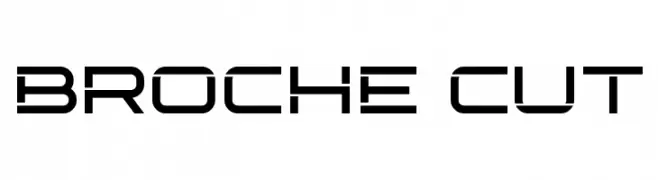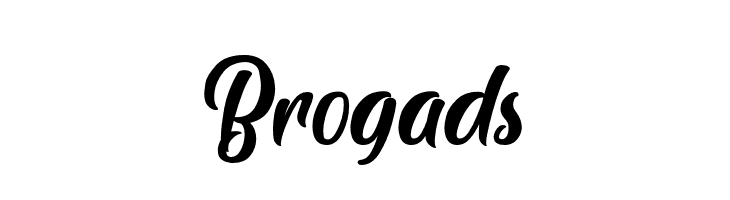
A modern, geometric font with angular lines and unique cut-out sections.
A modern, geometric font with sharp angles and a futuristic aesthetic.
A bold, playful font with rounded edges and a bubbly appearance.
An elegant script font with ornate, flowing characters and intricate details.
A bold, jagged, and dynamic brush-style font with an aggressive edge.
A dynamic handwritten font with fluid strokes and elegant style.
A bold, hand-drawn style with rough, textured edges and dynamic strokes.
A bold, textured font with a hand-drawn, energetic style.